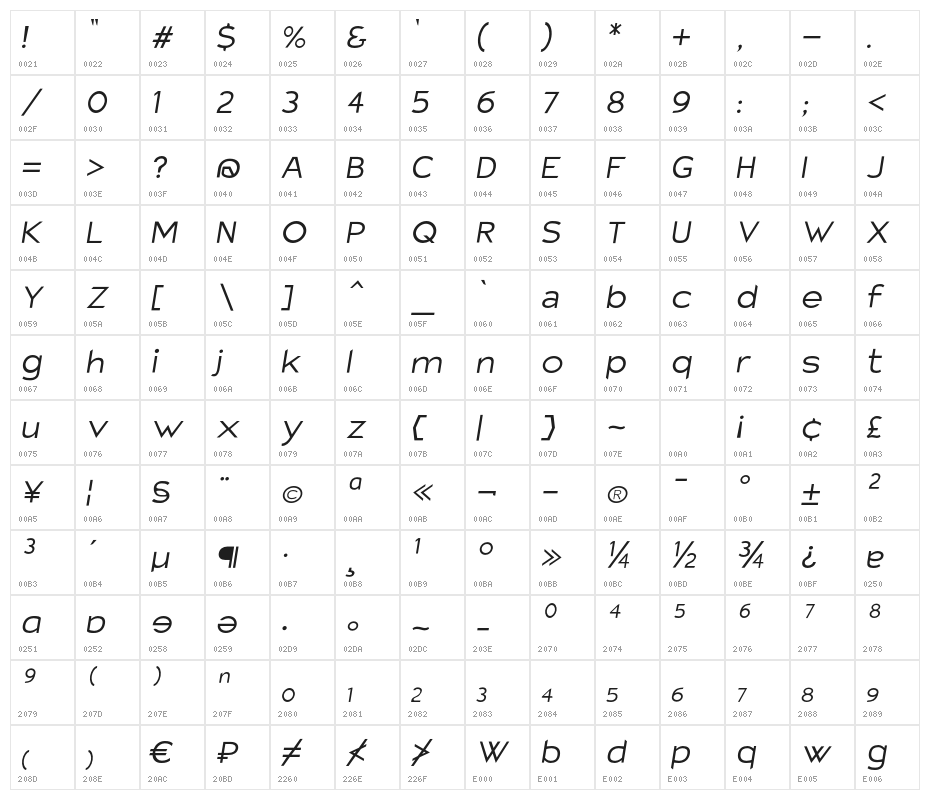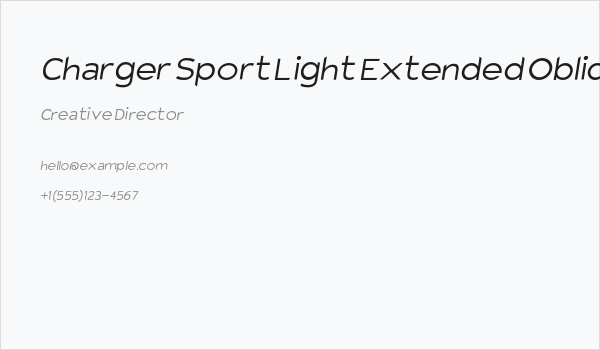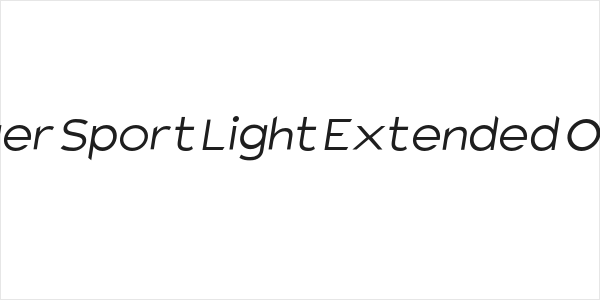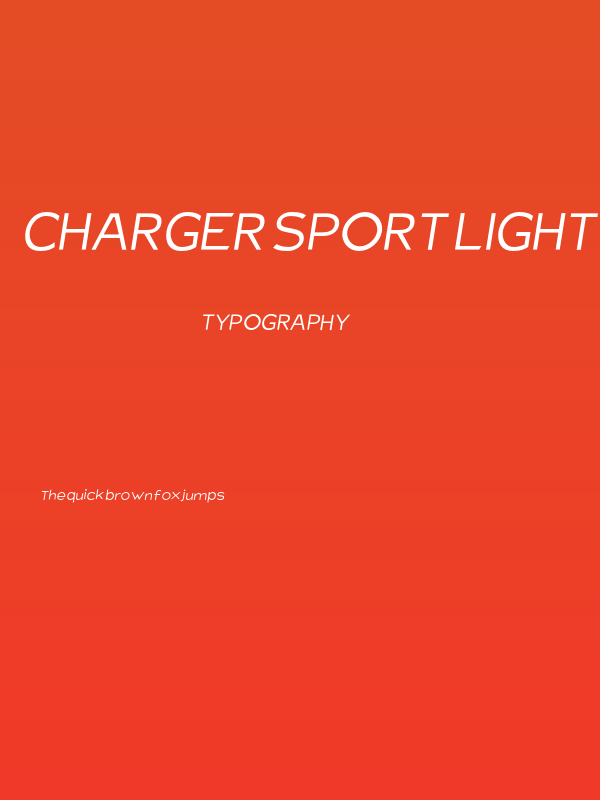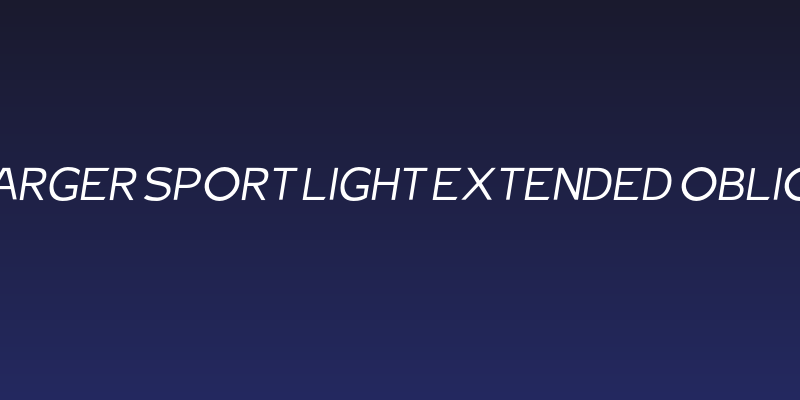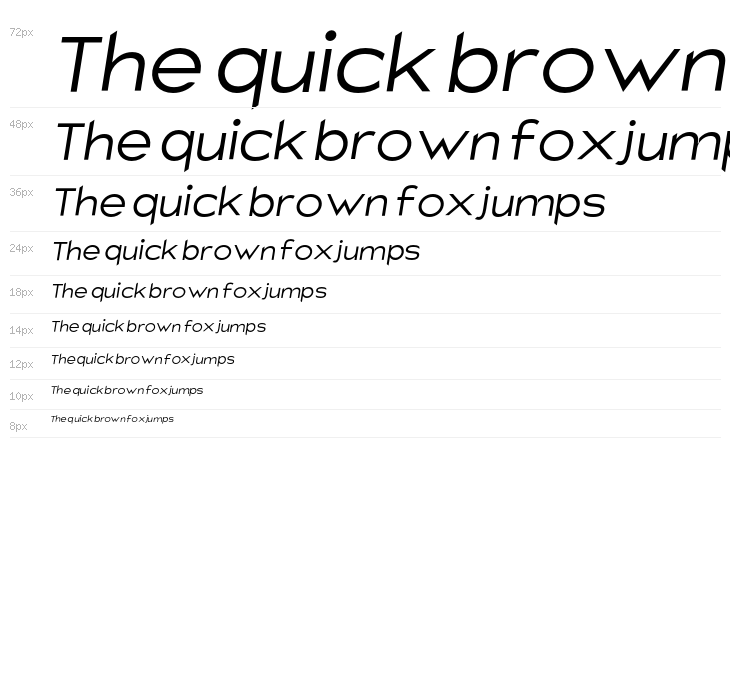
Charger Sport Light Extended Oblique Font
Charger Sport Light Extended Oblique Description
This font features a sleek and modern design with an oblique style, giving it a dynamic and forward-leaning appearance. The characters are extended, providing a sense of openness and space. The light weight of the font adds to its elegance, making it suitable for contemporary designs. The sans-serif nature ensures clean lines and a minimalist aesthetic, perfect for projects that require a modern touch. The character spacing is normal, allowing for easy readability while maintaining a stylish look. The contrast in stroke thickness is low, contributing to a smooth and uniform appearance across all characters.
| Use Case | Headlines, Logos, Digital Media |
| Proposed Projects | Ideal for branding, advertising, and digital media projects that require a modern and sleek aesthetic. |